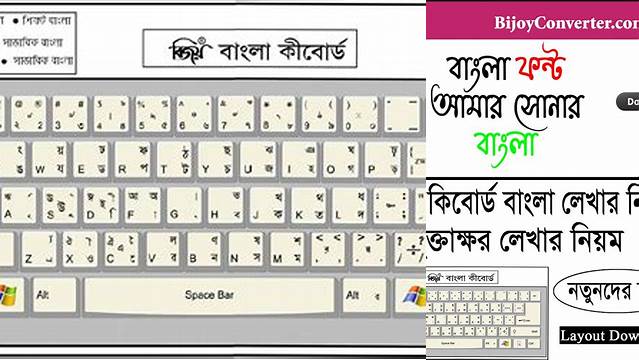
Welcome, folks! Today, we're diving headfirst into the world of Bengali typography, with a special focus on the ever-popular Bijoy Bangla Font! If you're here, chances are you're looking for a free download and some insights. You've come to the right place. This guide will be your one-stop shop for everything Bijoy, from where to snag that free download to how to best utilize it in your projects. Get ready to unleash your inner typographer!
H2: The Essentials of Bijoy Bangla Font: Why It Matters
Alright, let's get down to brass tacks. Bijoy Bangla Font isn't just any font; it's a cornerstone of digital Bengali writing. Created by Mustafa Jabbar, this font has, for decades, been the go-to choice for anyone looking to type in Bangla on a computer. Why? Because it works! Its key advantage lies in its phonetic keyboard layout. This means you can type in Bangla by typing the sounds, similar to how you'd pronounce the words. This makes it incredibly accessible, especially for those who aren't as familiar with traditional Bangla keyboards. It's like the gateway drug to digital Bangla.
Beyond its practicality, the font is deeply integrated into Bangladeshi culture. It's used everywhere – from government documents and educational materials to newspapers, websites, and social media posts. Learning to use Bijoy means you're connecting to a huge digital community and being able to easily read and write in the language. So, whether you are a student, a professional, a creative, or just someone wanting to connect with their heritage, knowing Bijoy is a serious advantage. Another important facet of the font is its evolution. Over time, it has been updated and refined. As technology improved, so did Bijoy. This means it can be reliably used with the latest operating systems and software. This longevity is a testament to its developers' dedication.
Its enduring popularity also speaks volumes about its quality. The fonts were designed with meticulous attention to detail. So, they look good. The glyphs (the individual characters) are designed to be clear, easy to read, and aesthetically pleasing, making sure the text is not just functional but also visually appealing. This is something that often gets overlooked, but which is super important. When you use it, the words don't just convey the information, they look beautiful. This is why Bijoy is such a respected and important font for digital Bangla writing.